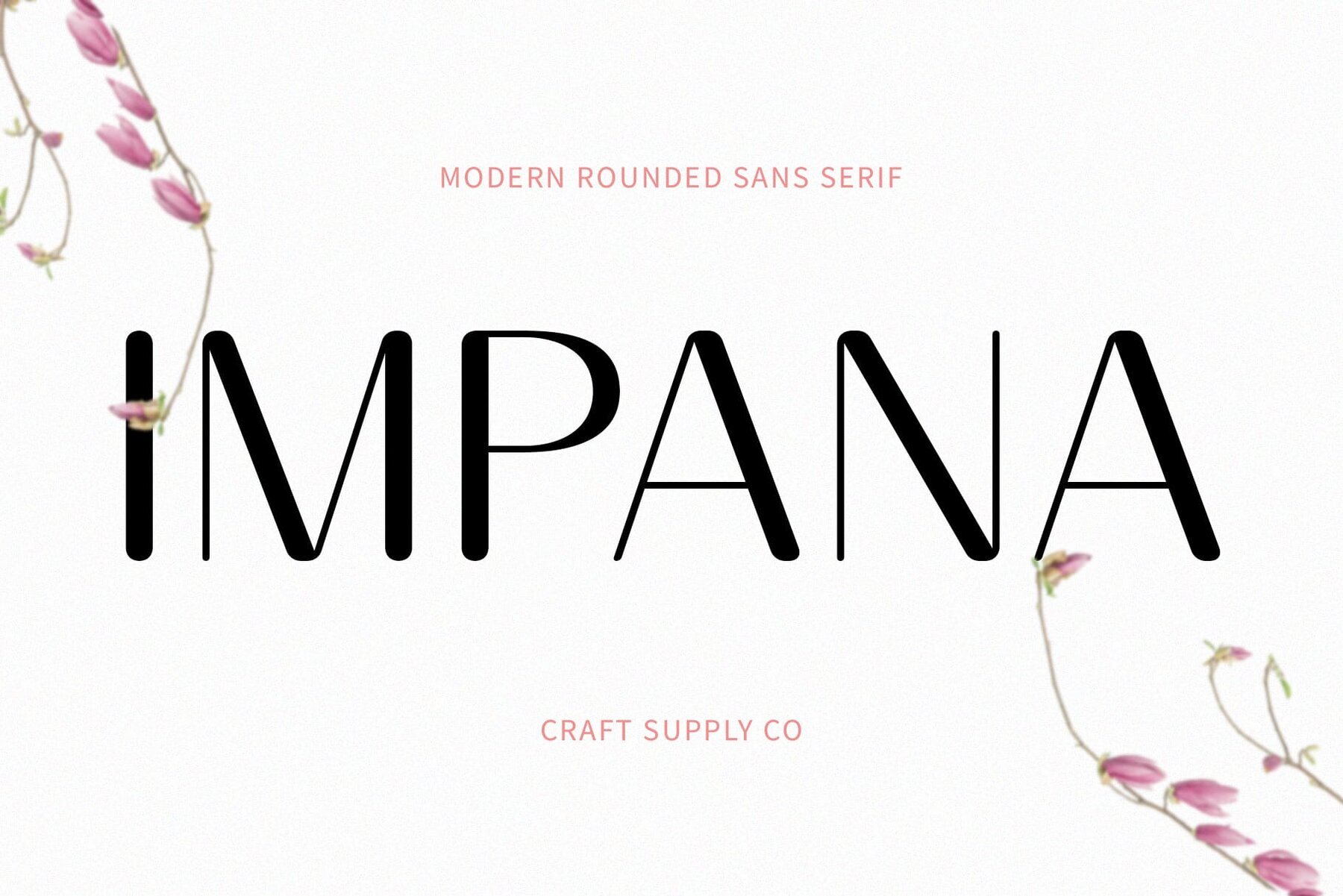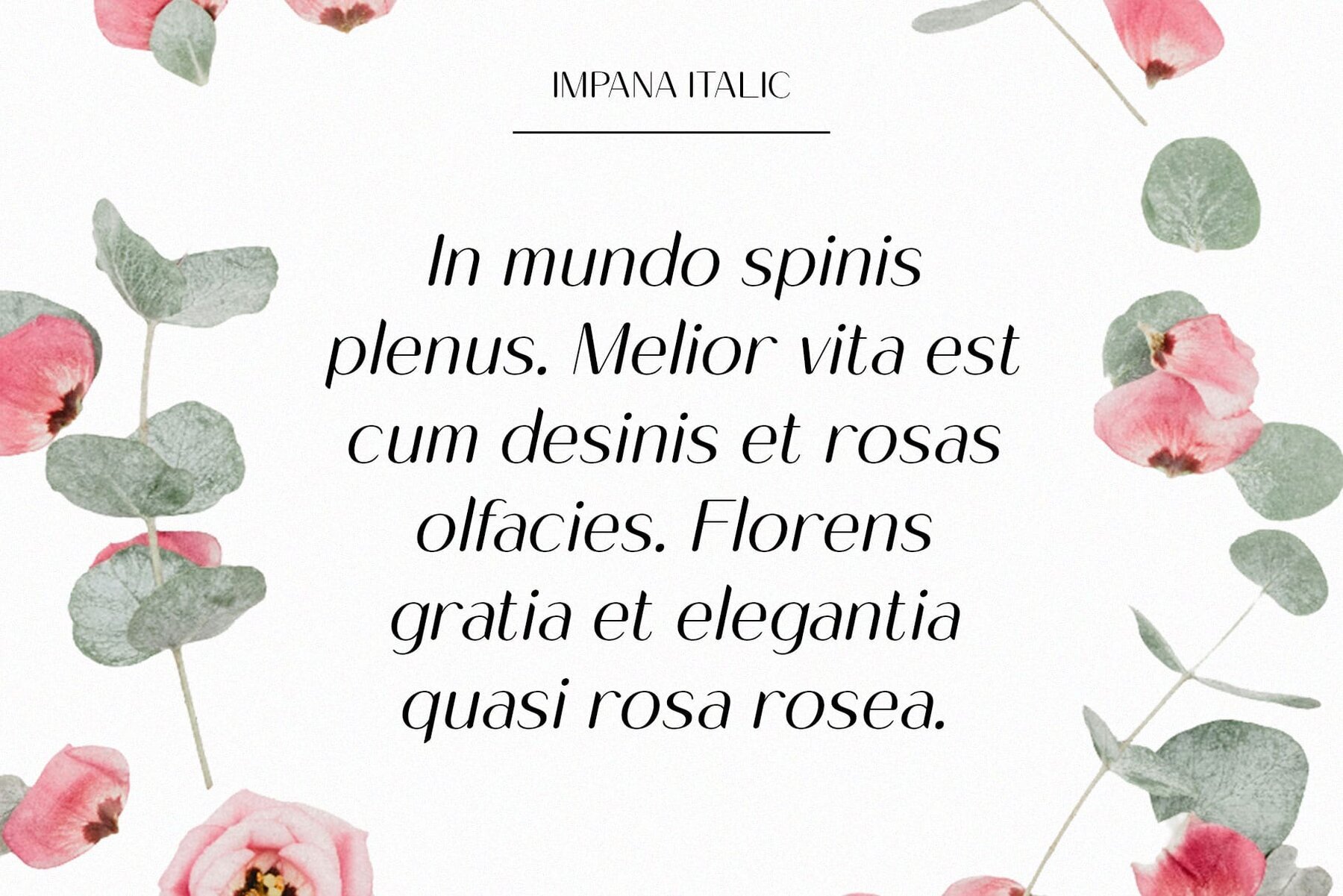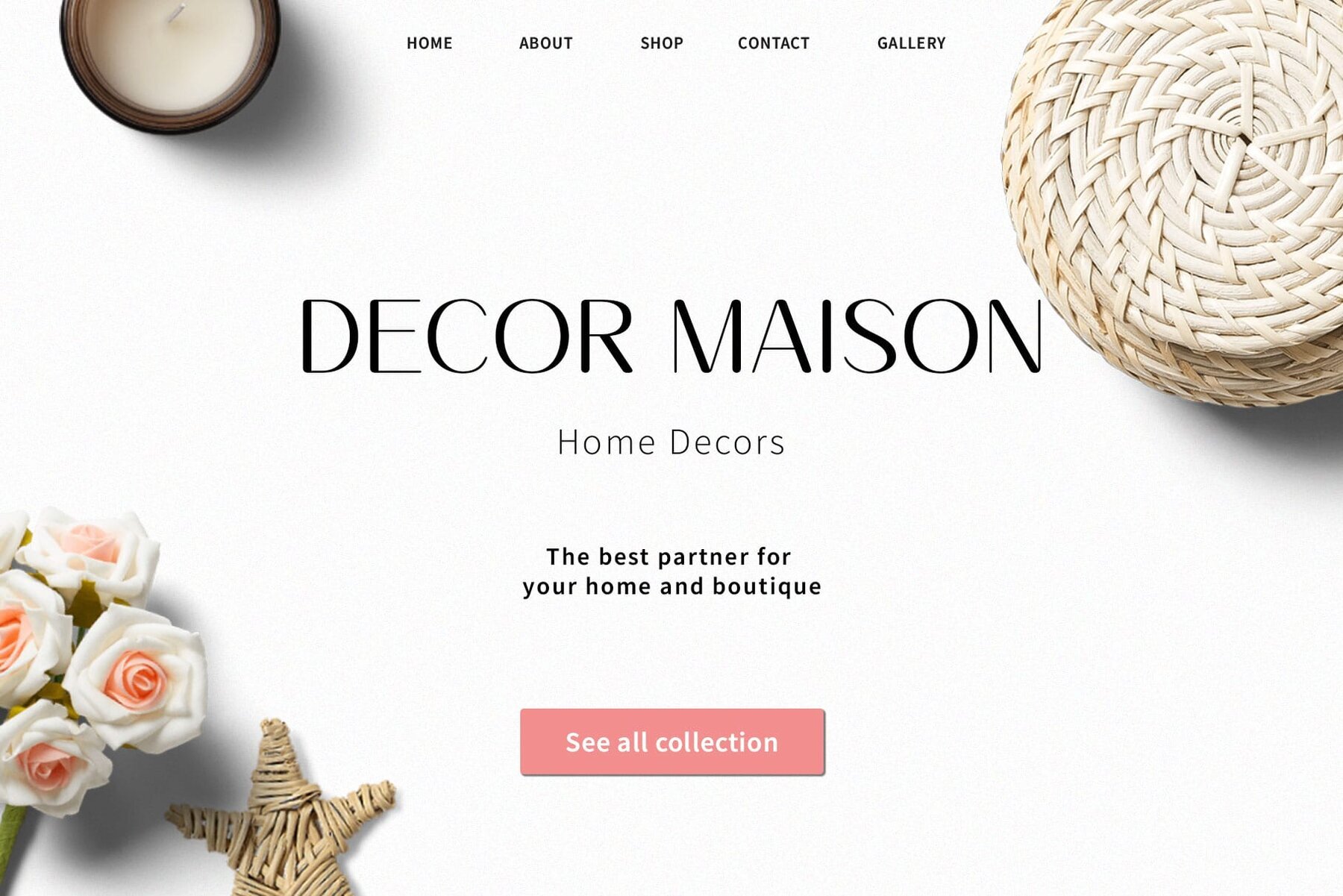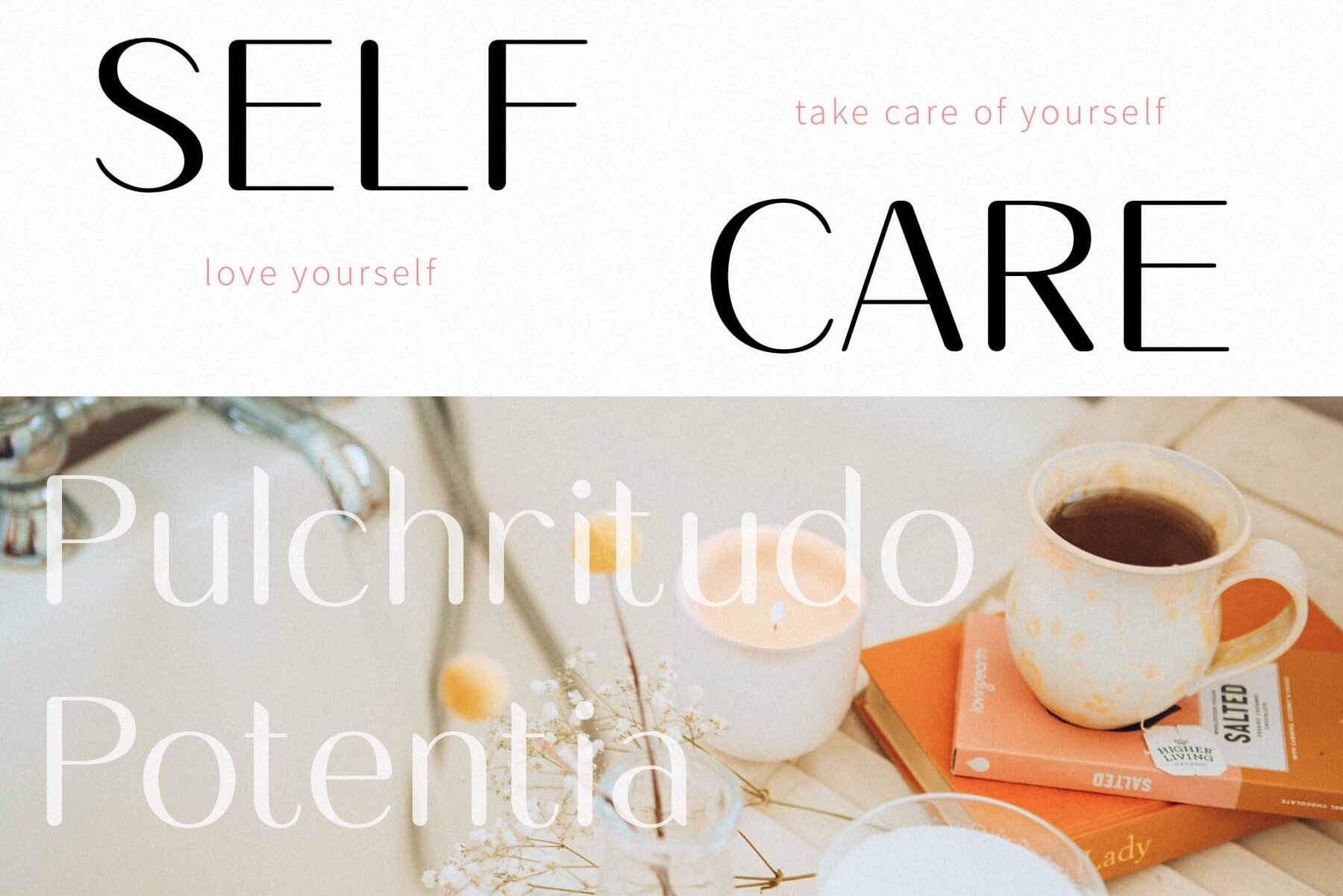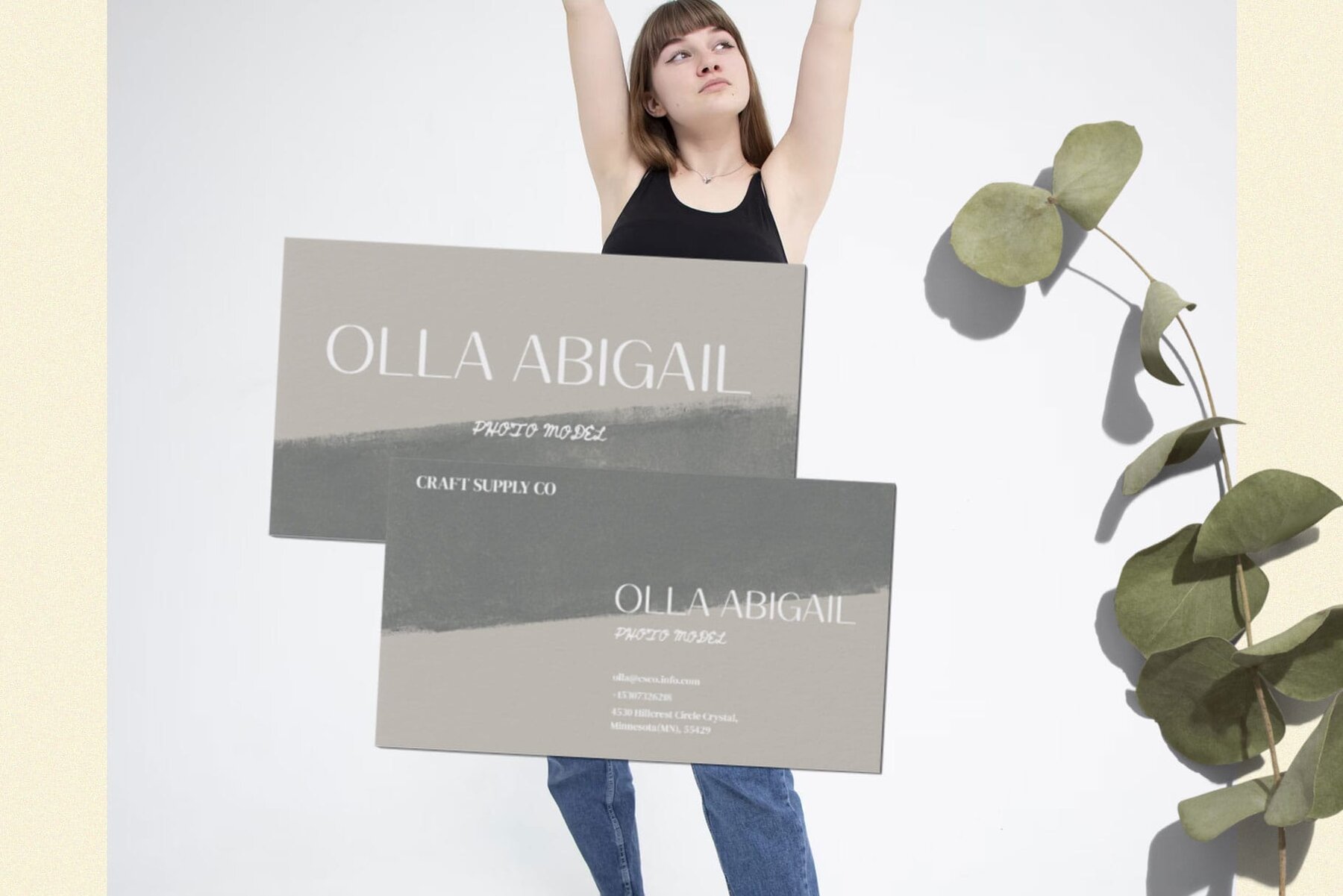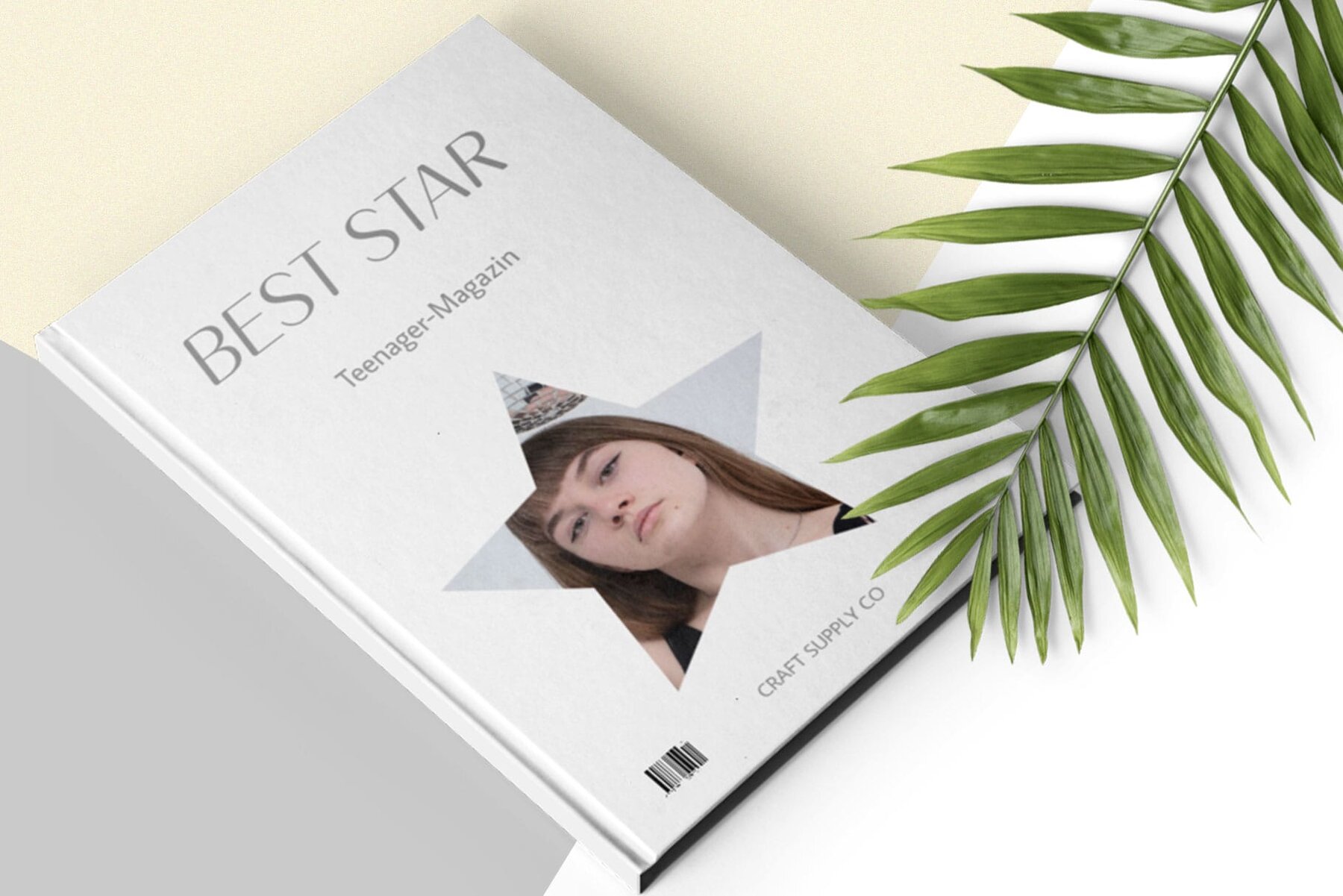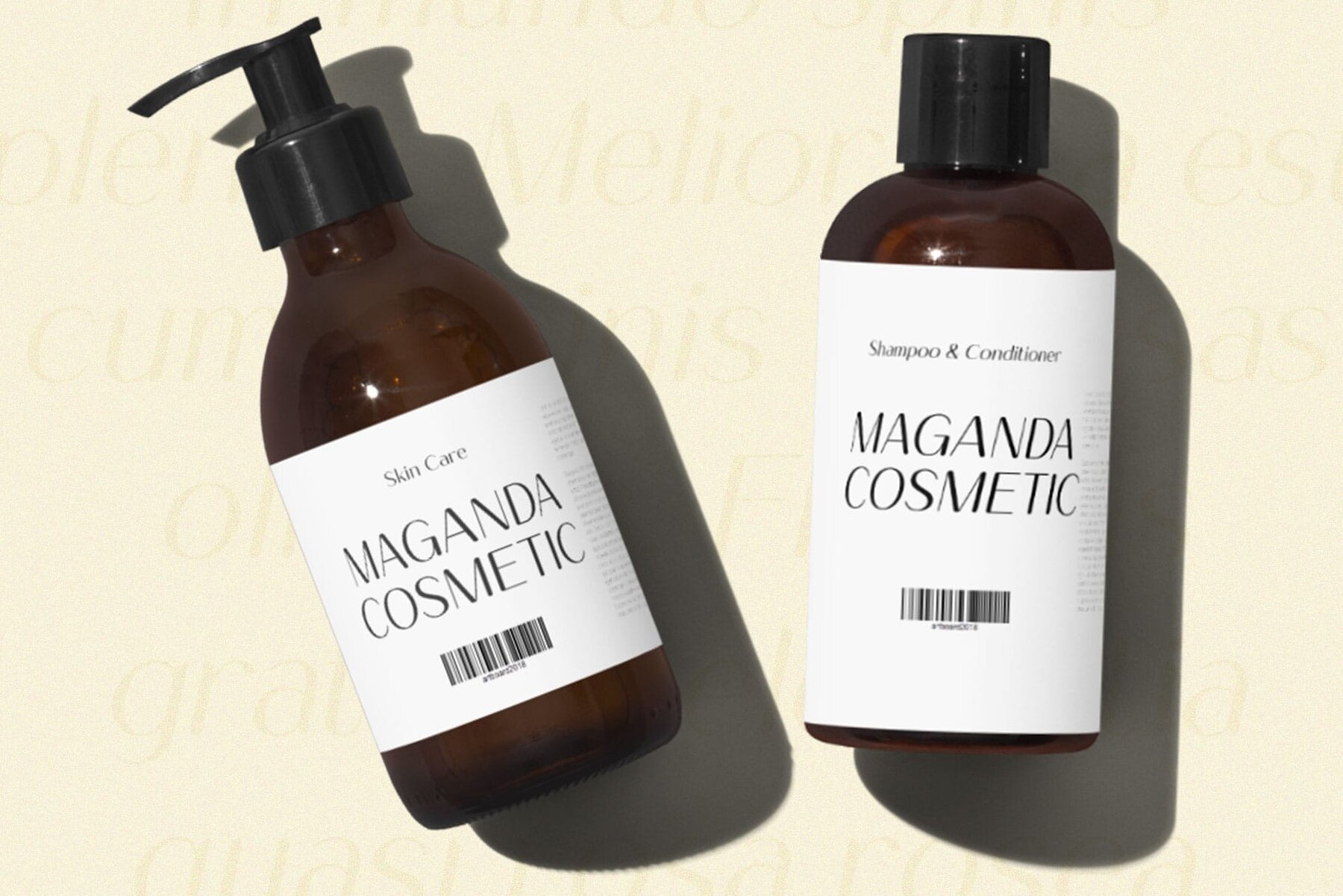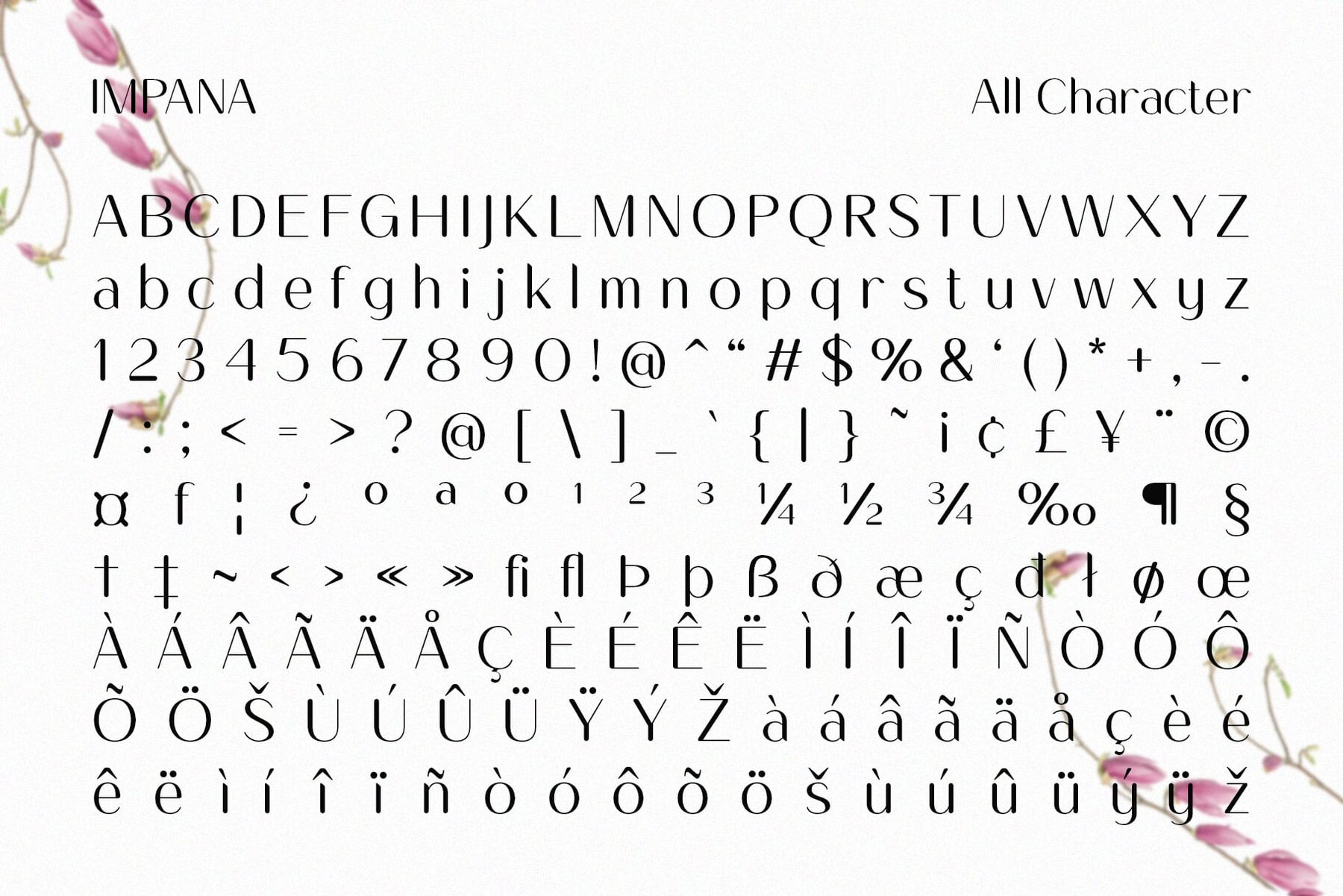
Impana Rounded Font
This sans-serif font exudes a modern and clean aesthetic, making it perfect for contemporary design projects. Its sleek and professional look ensures legibility, suited for both web and print design. Ideal for branding, editorial layouts, and headlines, this font's versatile nature promises to enhance any graphic design endeavor.